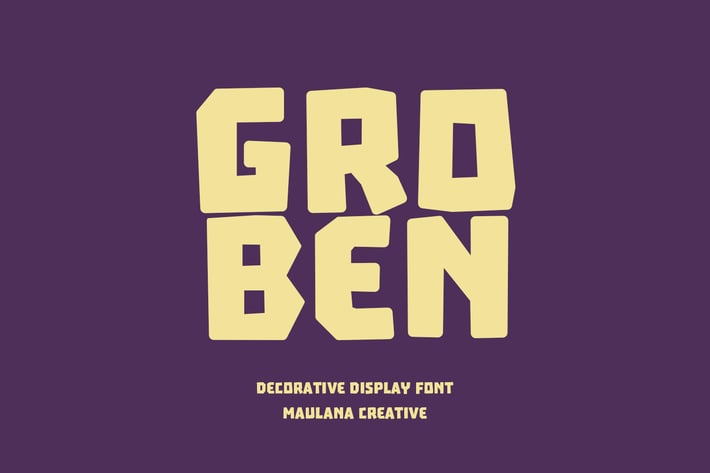
Groben Decorative Display Font
Groben is a All Caps Bouncy Sans Display font. Bold stroke, fun character with a bit of ligatures and alternates. To give you an extra creative work. Groben font support multilingual more than 100+ language. This font is good for logo design, Social media, Movie Titles, Books Titles, a short text even a long text letter and good for your secondary text font with script or serif. Make a stunning work with Groben font.